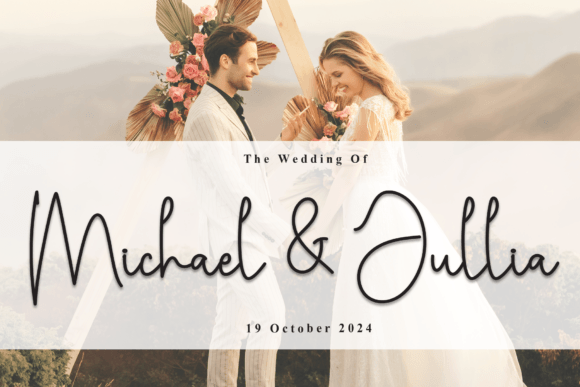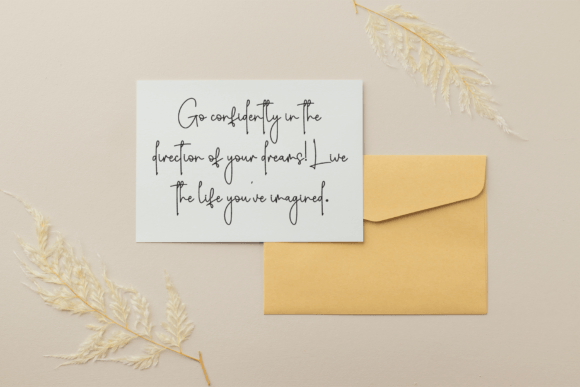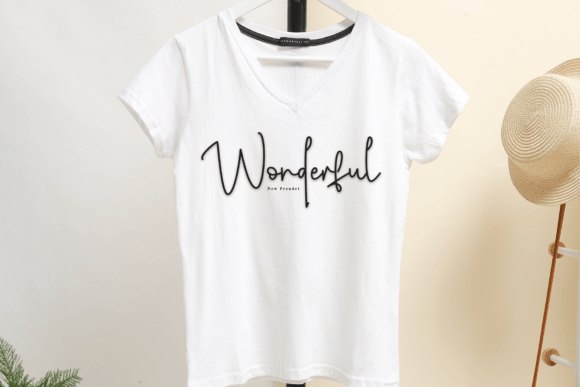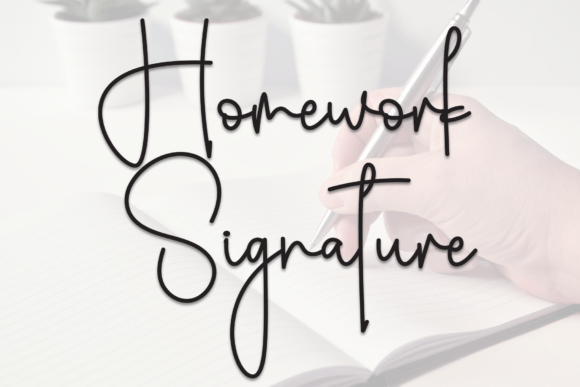
Introduction to Homework Signature Font
Homework Signature is a stylish script font that mimics a handwritten signature.
It has smooth, flowing lines and a personal, casual feel, making it perfect for projects that need a friendly and authentic touch .
Key Features of Homework Signature Font
Why Choose Homework Signature Font?